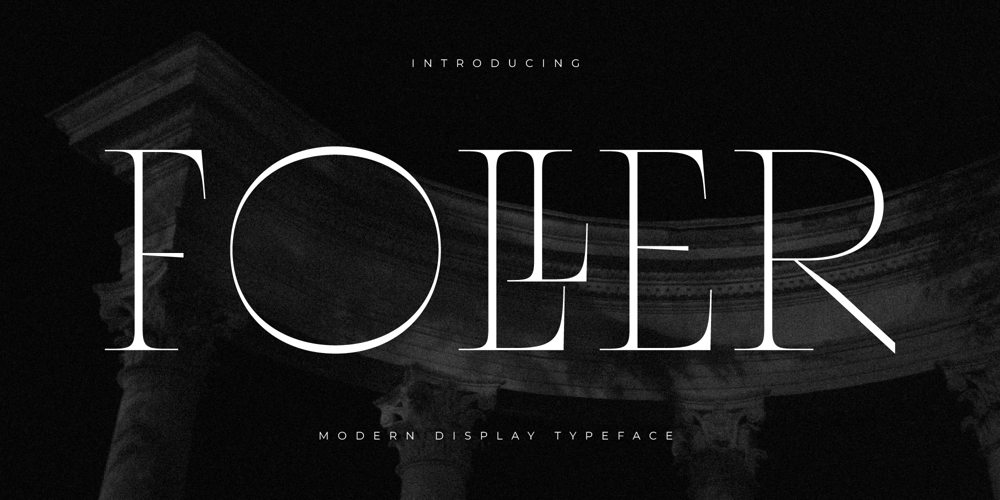
Foller Font Family was designed by Mujahid Al Fikri and published by Glyphofik Type. Foller contains 1 styles and family package options. Foller Display is a modern display typeface with all capital letters.Some of lowercase letters that have a narrower width than uppercase letters.Unique ligatures for both uppercase and lowercase letters that are adjusted to the width.Suitable for logos, quotes, posters and other designs with an elegant and modern feel.